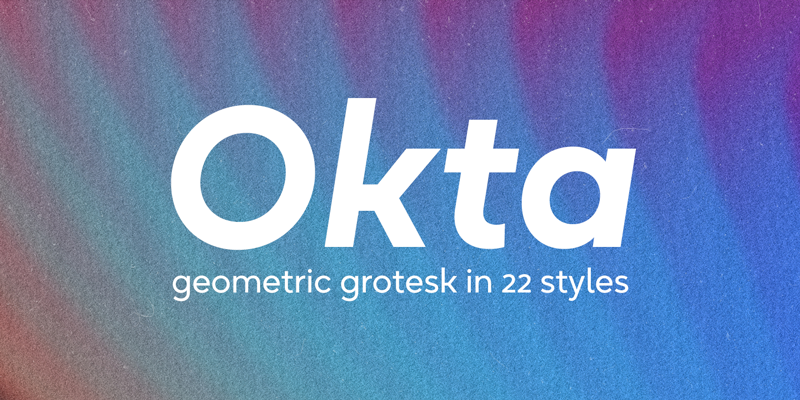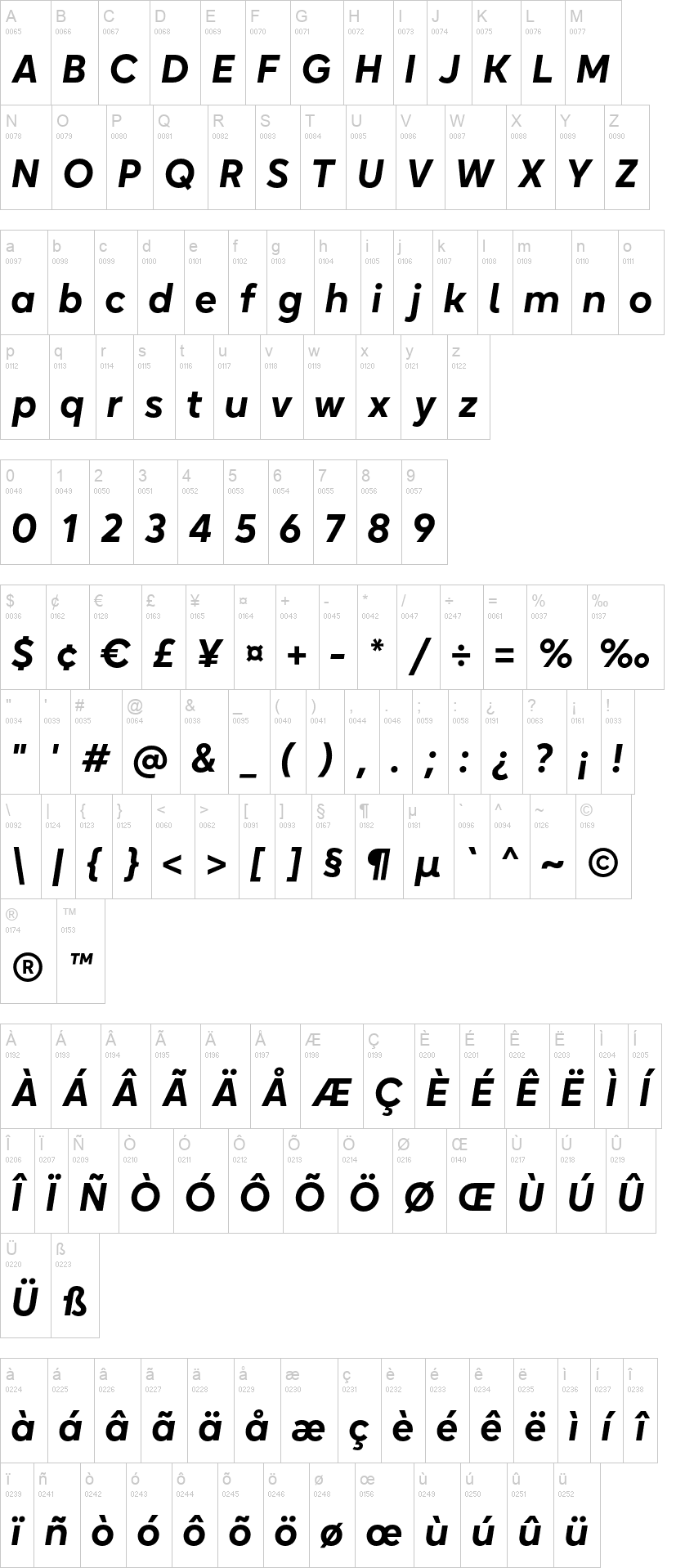
Note of the authorOkta is a geometric grotesk that comes both as a variable font and 22 static fonts: 11 uprights and 11 matching italics, which make it a great tool for those seeking a versatile font with a strong character and high legibility. Throw in a very pleasing look, elegant curves and a wide range of weights, and you'd get what Okta aspires to be: a perfect typographic tool for every need.In Okta, elegant geometric curves meet bold strokes and wide apertures. Round letters are nearly circular, but, to boost readability, slight changes were introduced for optical compensation. Okta is also equipped with amazing OpenType features: case sensitive punctuation, ligatures, fractions, superscript and subscript figures, two kinds of circular figures, stylistic & contextual alternatives and much more!
Okta supports all major European languages, as well as Vietnamese and some dozens of foreign languages that you may encounter in your designs. We've got all that covered. The glyph count for each of the styles is 800+ characters.